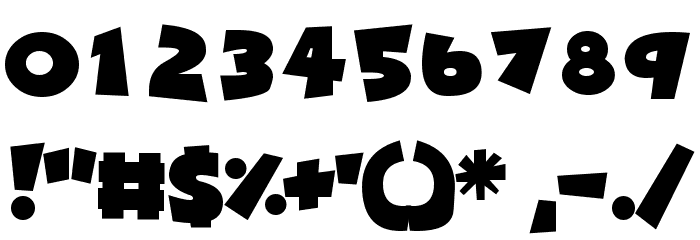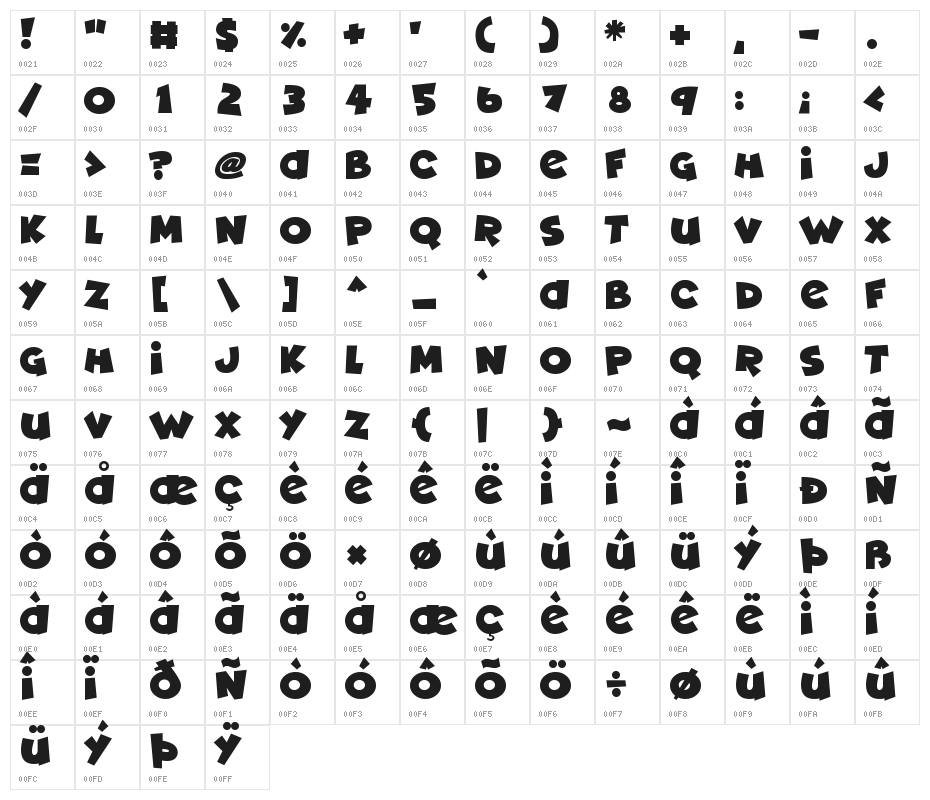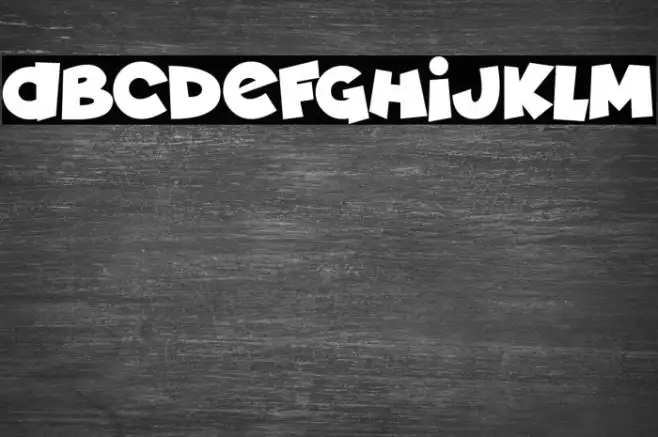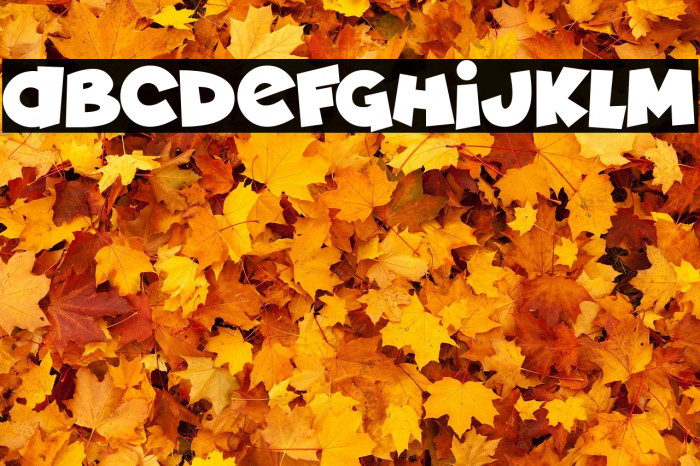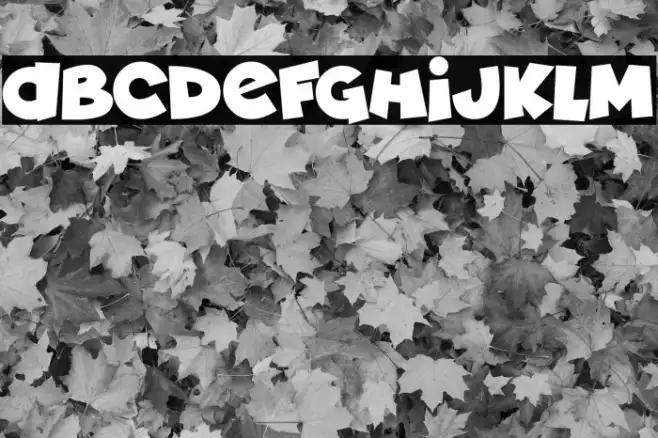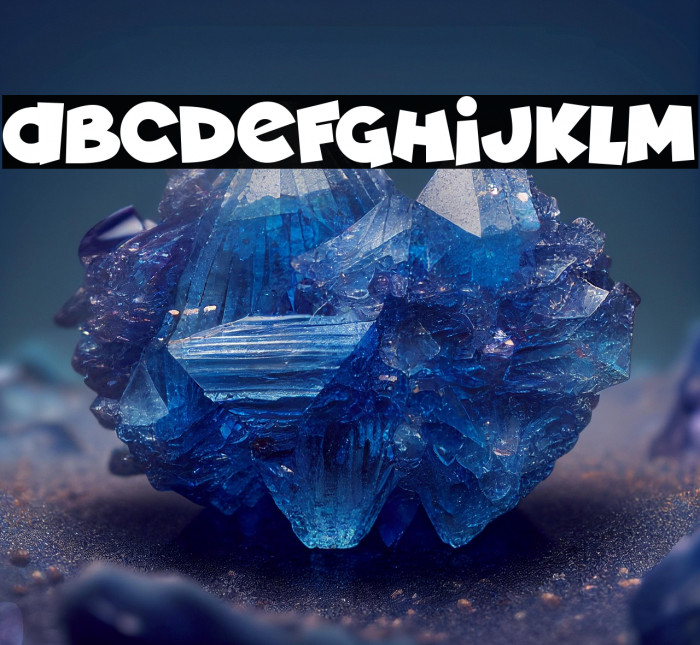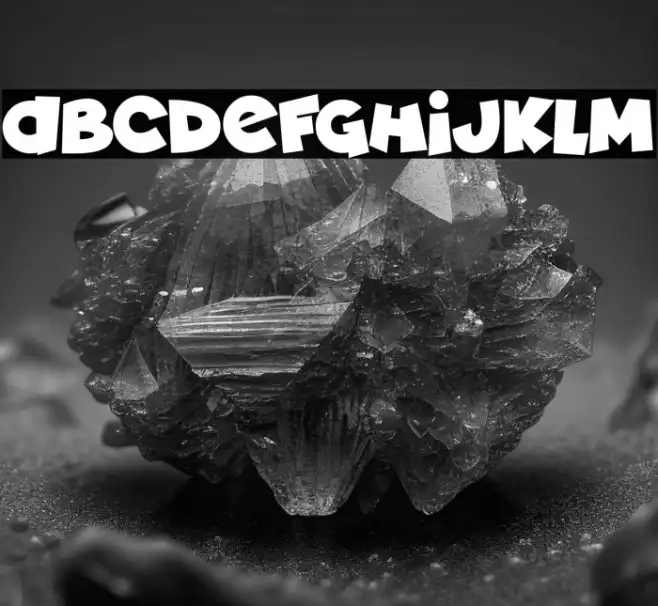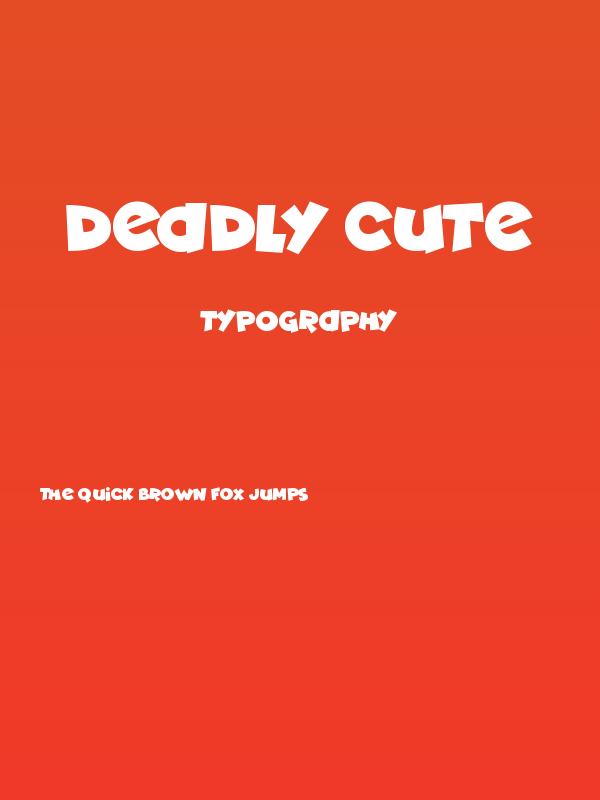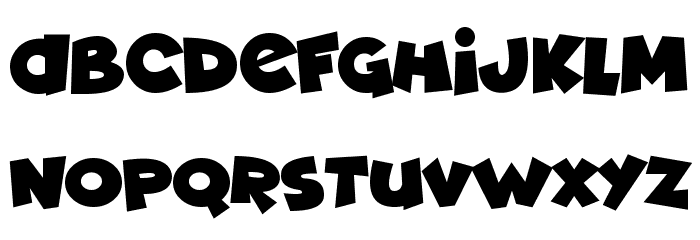
Deadly Cute Font
Deadly Cute Description
This playful and bold font features a unique, cartoonish style with exaggerated, chunky letterforms. Each character is crafted with a whimsical flair, making it ideal for designs that aim to capture attention and convey a sense of fun. The uppercase and lowercase letters maintain a consistent, lively aesthetic, while the numbers and special characters complement the overall theme with their quirky shapes. The font's design is characterized by its thick strokes and slightly irregular edges, adding to its charm and approachability.
| Proposed Projects | Ideal for children's books, playful branding, comic strips, and party invitations. |